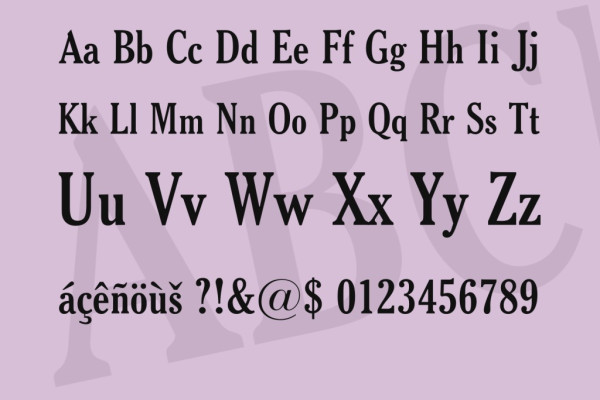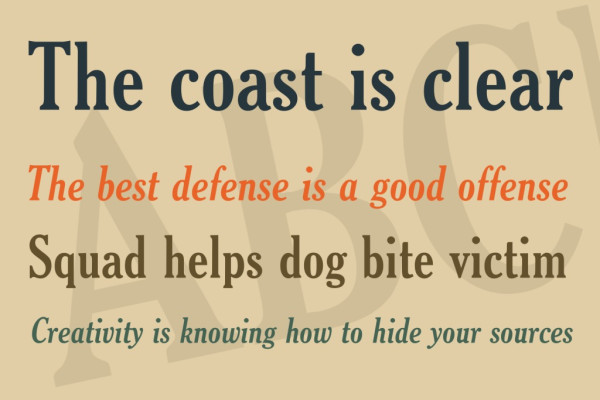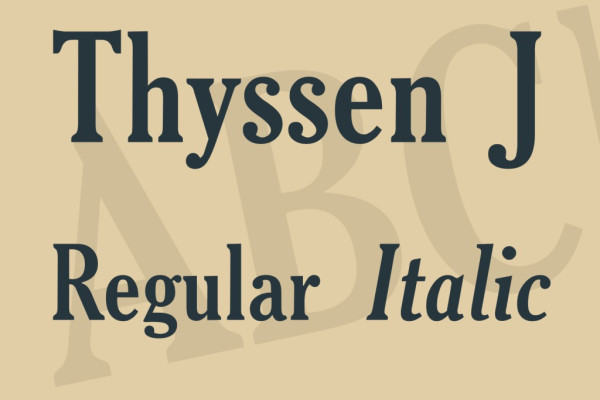
Thyssen J Font
Thyssen J Font by Bob Martins 23,810 downloads
Thyssen J Font
Thyssen J Font – 9juliust.ttf is designed and produced entirely from scratch by me, Julius. It’s one of my handwriting-derived fonts, I created it for personal use.
This “Julius B Thyssen” TrueType is rather lightweight, but so should
any scanned Parker-blue ballpoint-written material be, I think.
When you use it for bulk, you’ll get very nice-looking results printing
it at 14-16 points size, with line/paragraph height set around 17 points.
I’ve also used it quite often for large headers with a shade or dropshadow.
Looks nice with this font.
First version came about in 1993 by use of a scanner, Photoshop,
Freehand, Coreltrace, Old Fontographer and Fontmonster. Yes, 1993,
and it was a hell of a job! Soon after I had printed some letters
using this font, people started telling me things like:
“Wow man, is that your handwriting? Can I have it too? It’s beautiful!”
This 6th version of 9juliust.ttf was generated September 1998.
I’m still not entirely sure about some details. The “e” for example
used to be a little small, now it seems too large again.